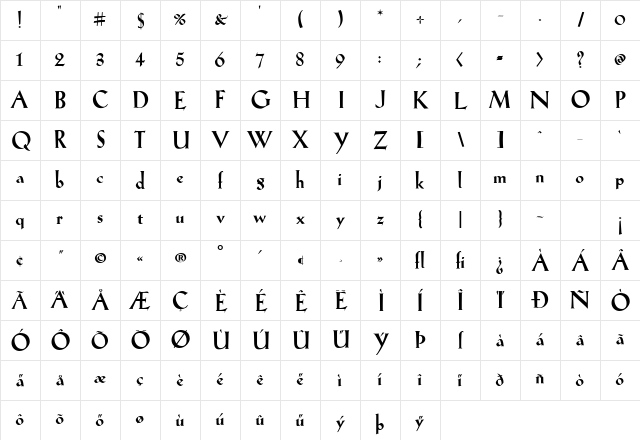
Complete AIKochAntiqua-ExtraBold Extra Bold glyph index. Displaying only characters natively supported by AIKochAntiqua-ExtraBold Extra Bold font.
AIKochAntiqua-ExtraBold is a composed and adaptable typeface that performs quietly and consistently across a wide range of design contexts. Its bold stroke weight gives it real presence on the page.